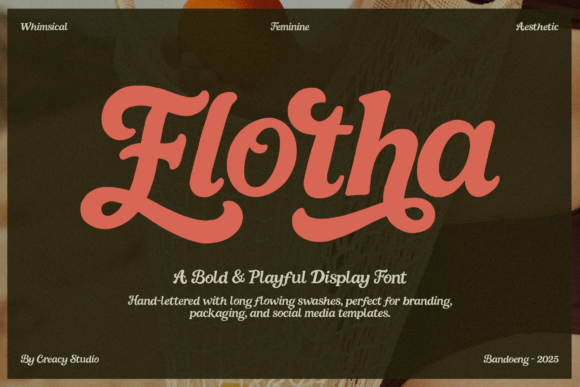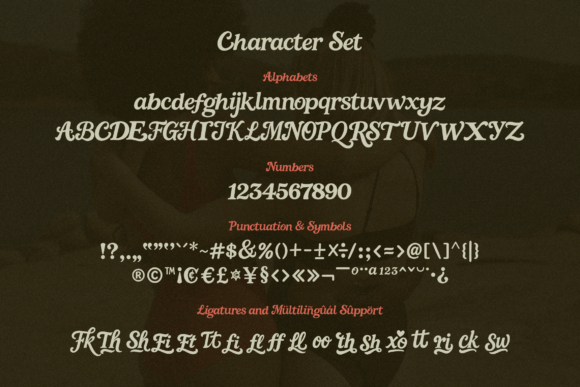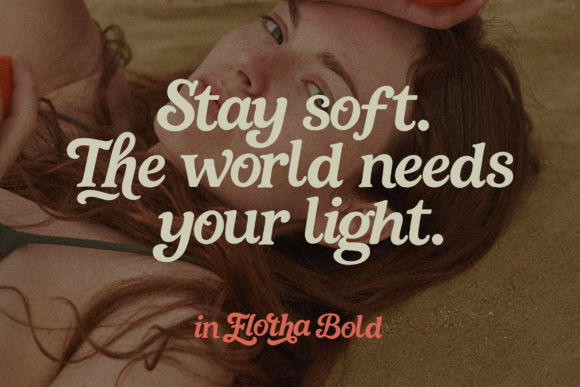
Flotha Font: Bouncy & Bold Display Font for Playful Branding & Social Media
About the Flotha Font
Presenting Flotha Font, a unique and stylish typeface that will make your work stand out. Flotha is a bold and bouncy display font with playful energy and aesthetic charm. Carefully hand-drawn with a brush pen, each letter is designed to flow with personality and style — perfect for creative branding, Instagram templates, packaging, wedding stationery, and more.
Flotha’s playful energy makes it ideal for headlines, short-form text in marketing materials, and branding projects requiring a touch of whimsy. It excels in packaging design, particularly for products aimed at a younger demographic or those with a creative, handmade aesthetic. Avoid using Flotha for large blocks of body text or UI elements; its bold strokes and irregular letterforms compromise readability in continuous text.
Consider pairing Flotha with a clean sans-serif like Montserrat for a balanced contrast, or a classic serif font such as Garamond for a more sophisticated feel. For a more modern aesthetic, a geometric sans-serif like Futura could complement its organic brush strokes.
Flotha’s overall personality is best described as friendly, energetic, and slightly rebellious. It’s suitable for brands focused on creativity, individuality, and a youthful approach.